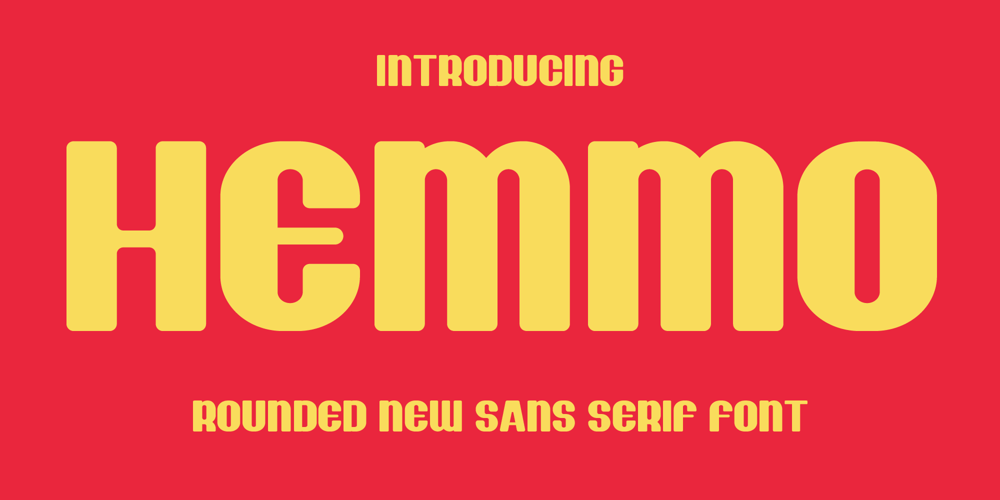
Hemmo
Hemmo font
Hemmo Font Family was designed by Iwan Alwan and published by Artiveko. Hemmo contains 2 styles and family package options. Hemmo is a retro sans serif font by Iwan Alwan, infused with a playful and nostalgic vibe that brings a fun, vintage feel to any design. With rounded, bold letterforms, Hemmo is perfect for posters, logos, packaging, and projects that embrace a cheerful, old-school aesthetic. Featuring multilingual support, ligatures, and alternates, Hemmo combines versatility with a lively retro flair, making it ideal for designs that want to stand out with a touch of timeless charm and fun.